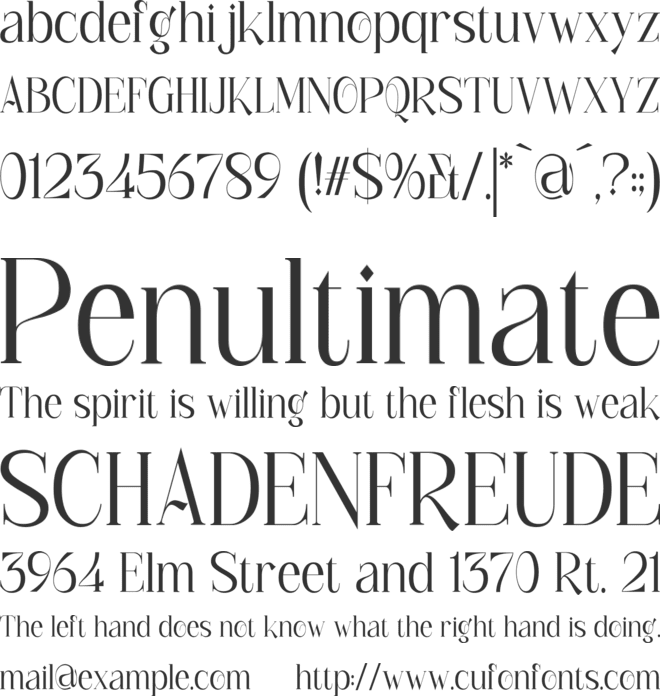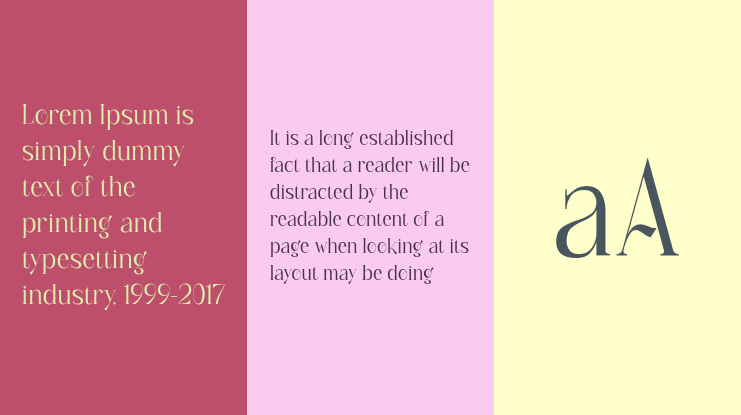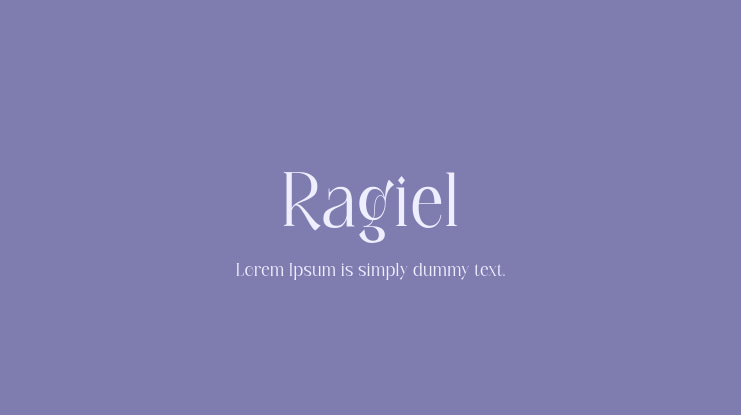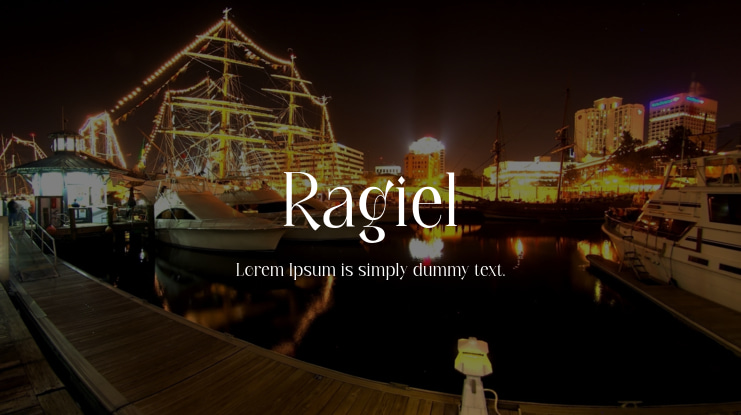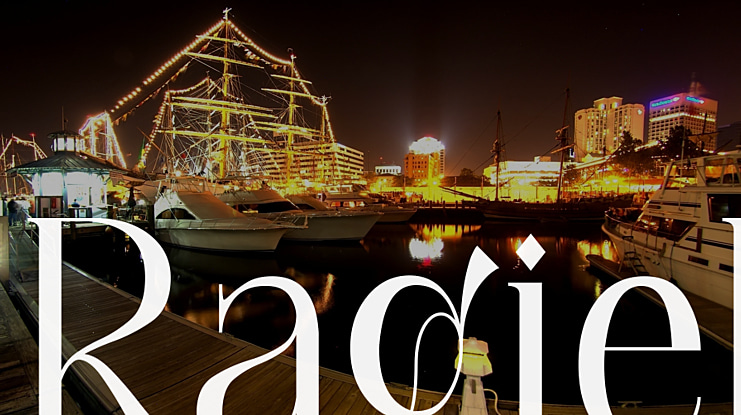
Ragiel Font Family
Ragiel is a classy and elegant serif font. Fall for its ravishing style and use it to create gorgeous wedding invitations, beautiful stationary art, eye-catching social media posts, and much more!